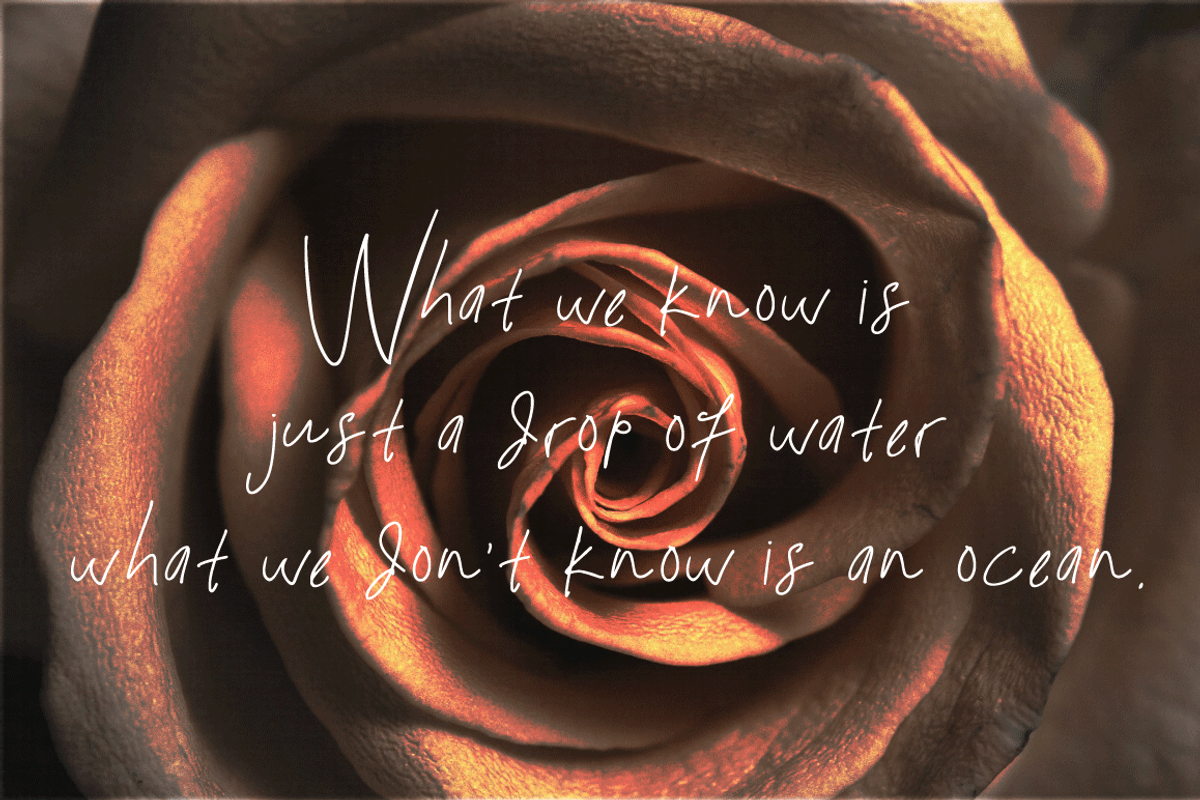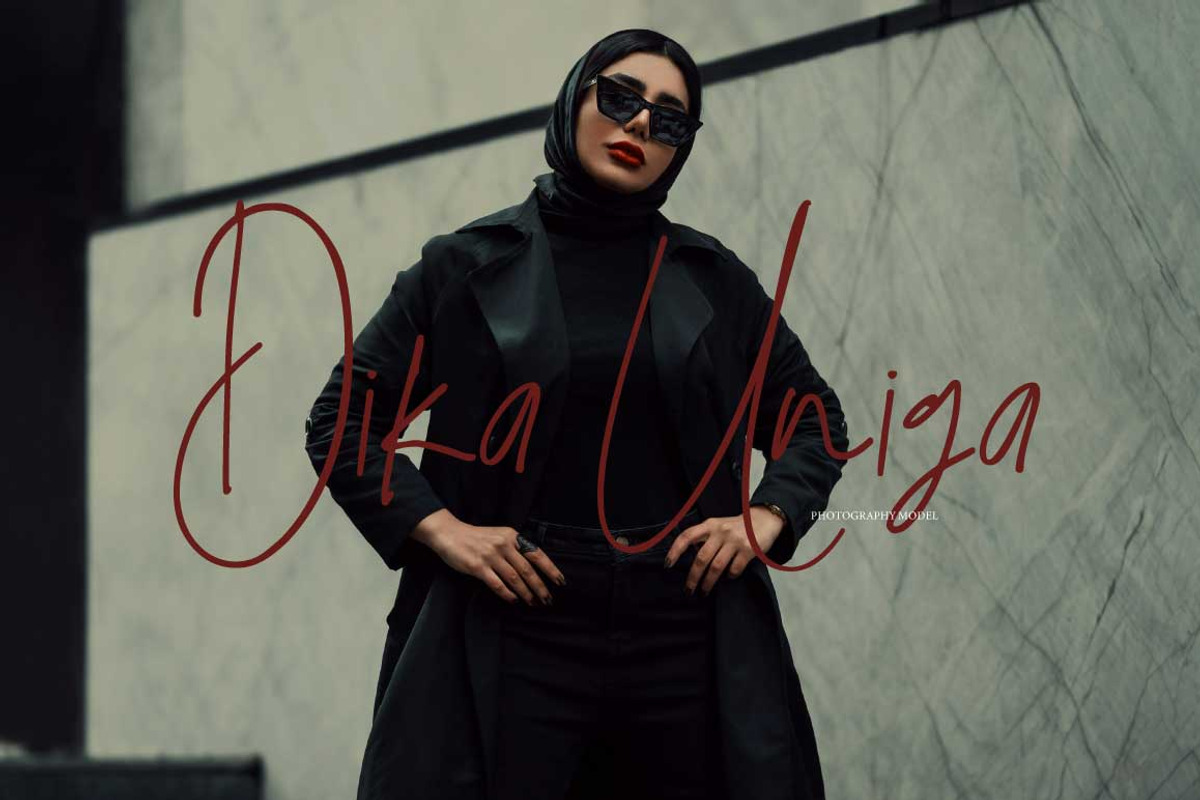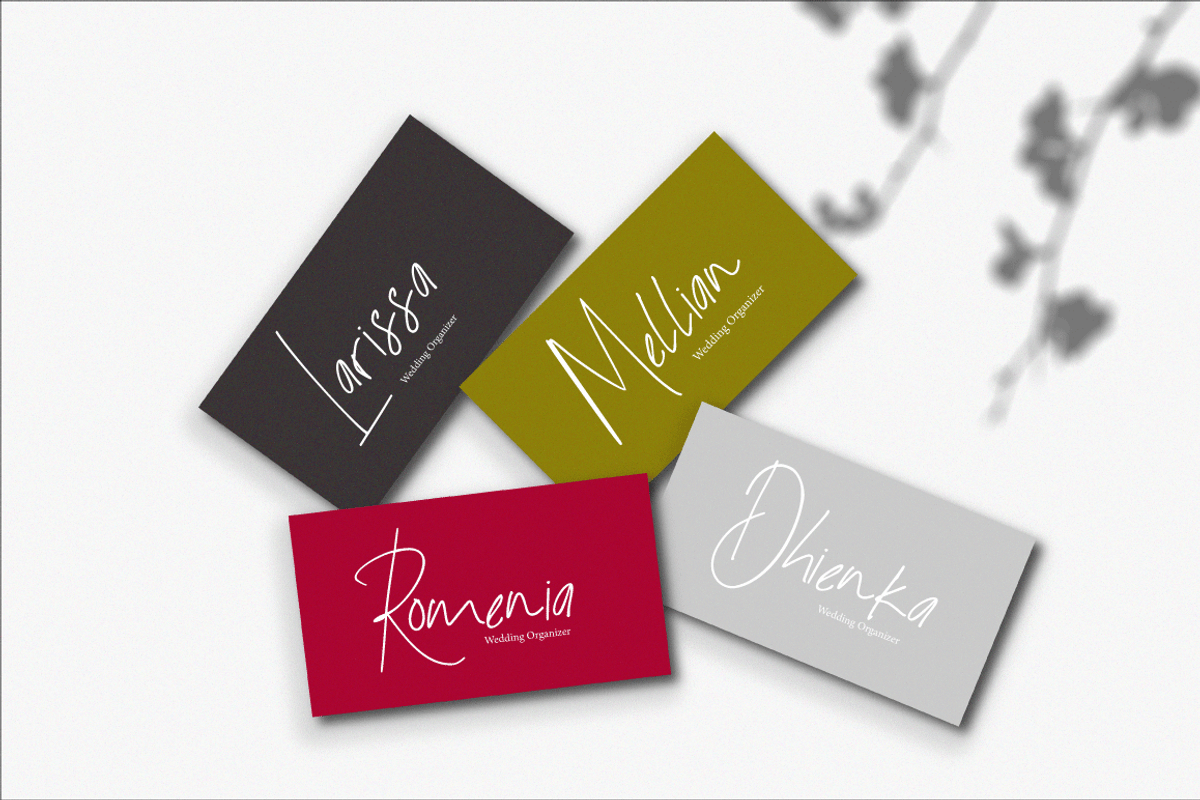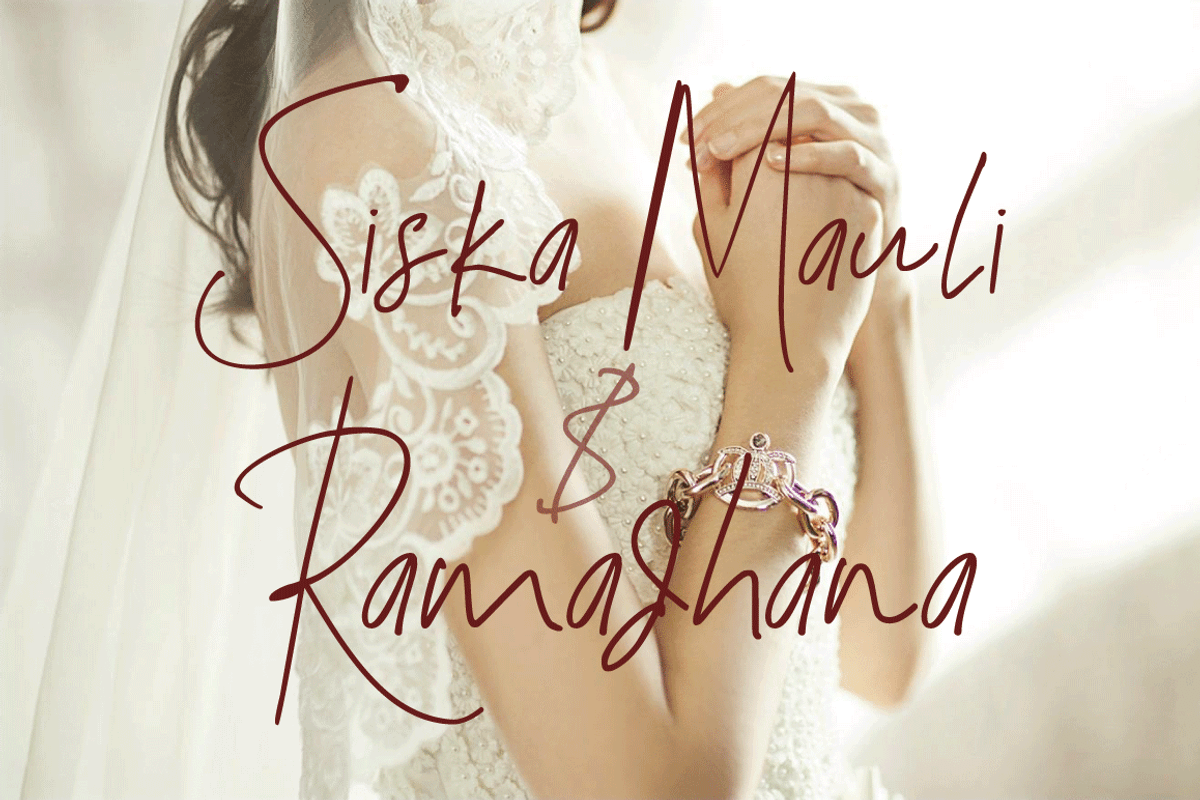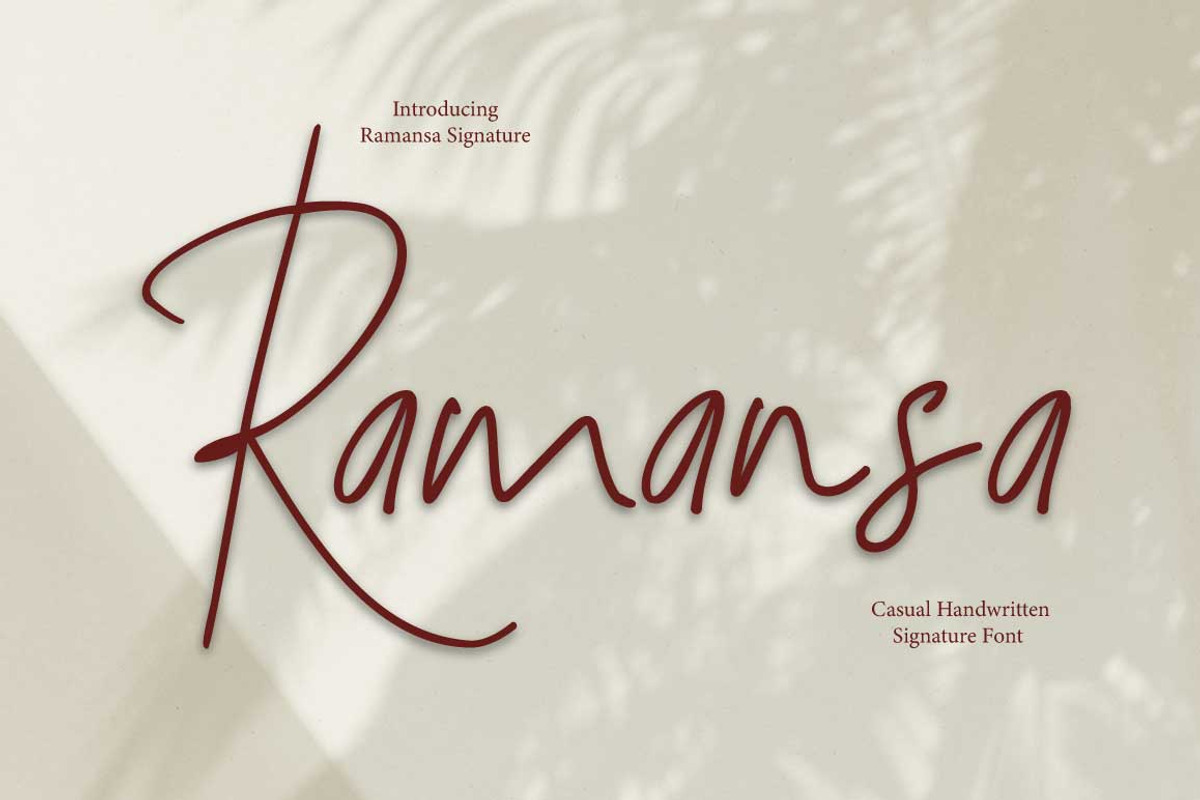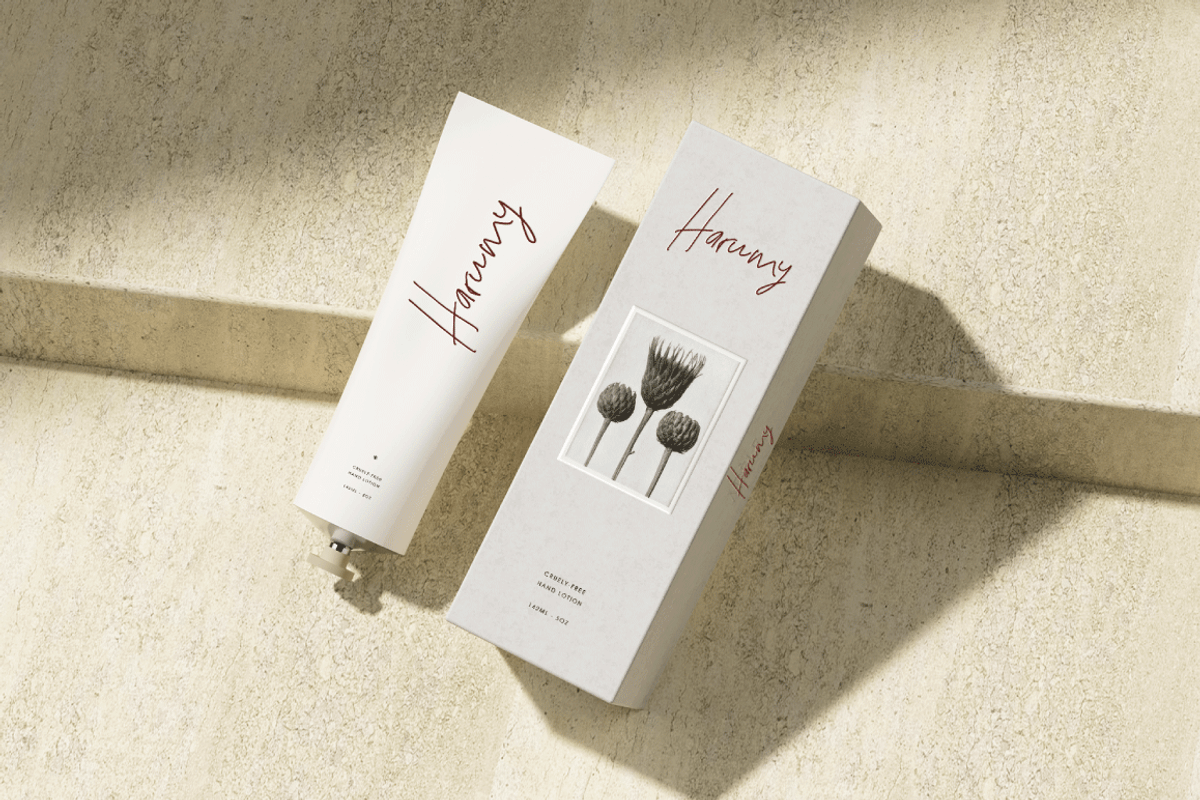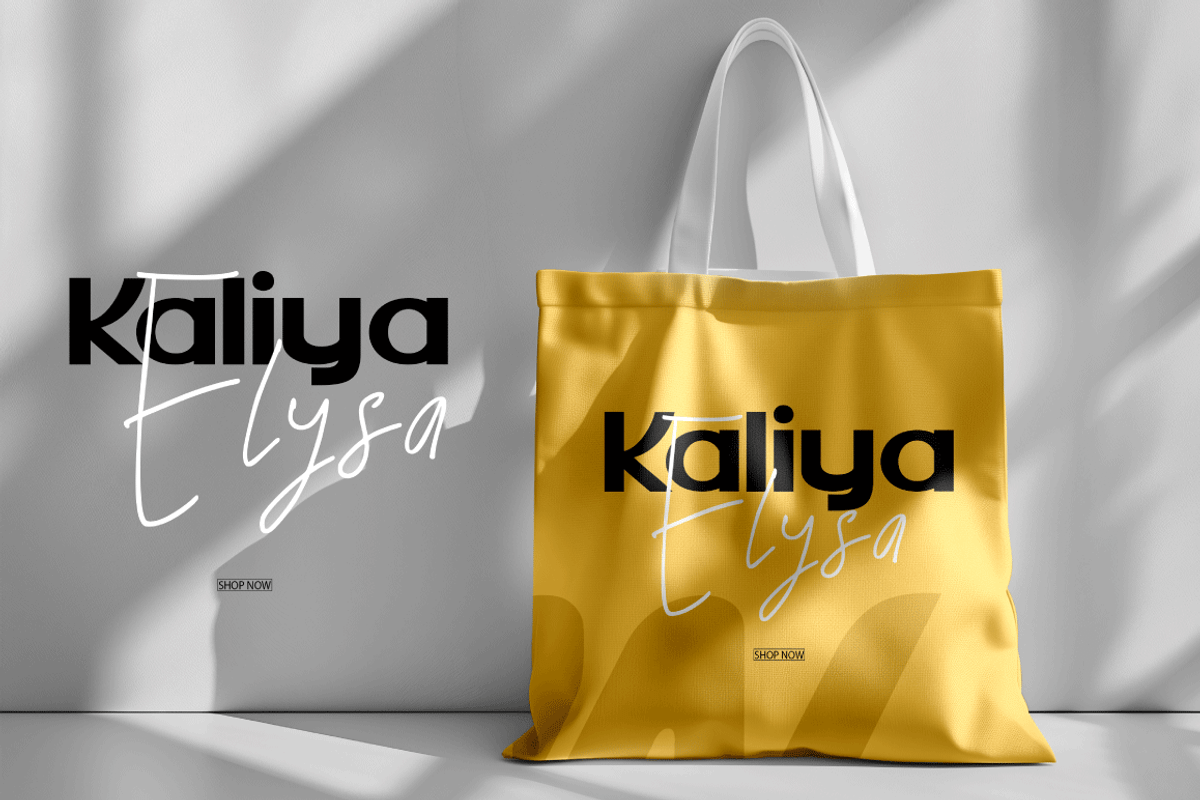
Ramansa Signature Font
Ramansa Signature Brush with handmade Signature style, decorative characters, and dancing baselines! Very beautiful for invitations such as greeting cards, branding materials, business cards, quotes, posters, and more!!
Ramansa Signature Brush with 189+ glyphs. Alternate characters are divided into several Open Type features such as Swash, Stylistic Sets, Stylistic Alternates, and Ligatures. Open Type features can be accessed using advanced Open Type programs such as Adobe Illustrator, Adobe InDesign, Adobe Photoshop Corel Draw version X, and Microsoft Word. And this Font has provided PUA unicode (specially coded fonts). so that all alternate characters can be easily accessed in full by a craftsman or designer.